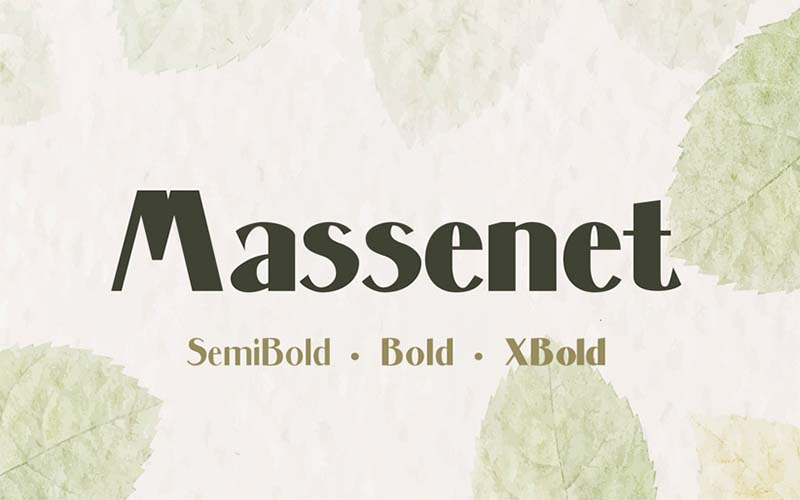
Massenet Font is a free sans serif typeface that plays a great combination of thick and thin strokes. This font designer Chuck Mountain took charge of designing and releasing it.
The free font has come in three unique styles including Bold, Semibold, and Extra Bold. This was named the Massenet after Jules Massenet (1842-1912), a French composer of nineteenth-century opera and sharp instrument music.
This display font is perfect for multiple purposes such as best for social media posters and helps to create logos, business card designs, banners, large display screens, flyers, and uses for bold headings.
This font has an amazing look that makes it great for advertisements, brochures, and for displays. So that’s why I think there is an excellent typeface in a lot of things, including fabric printing.
Massenet Font
This excellent font has great potential to add a remarkable touch to any design. Therefore, everyone can create a unique and adorable design with this Massenet typeface which is available for free.
So, for display projects, this would be the best use. Because of the stunning font with both styles thin and thick structure gives a modern touch that is different from other fonts.